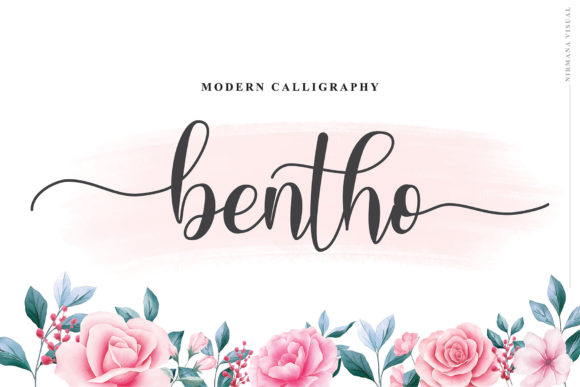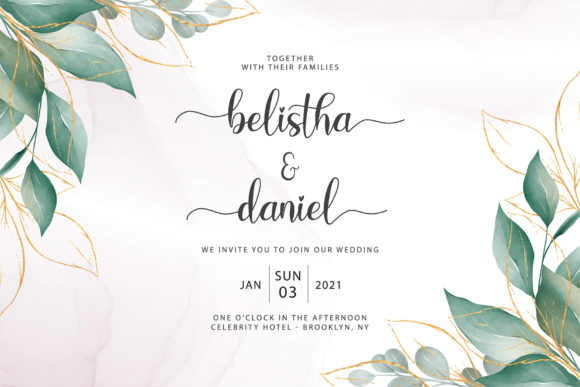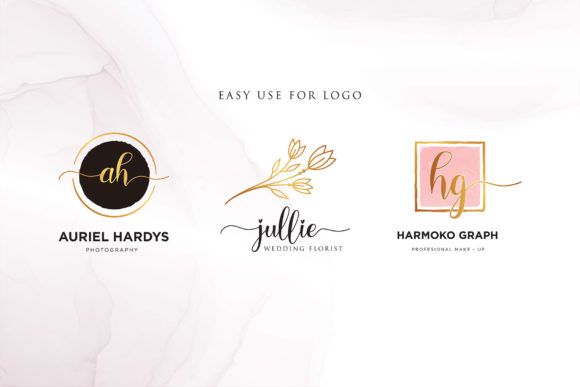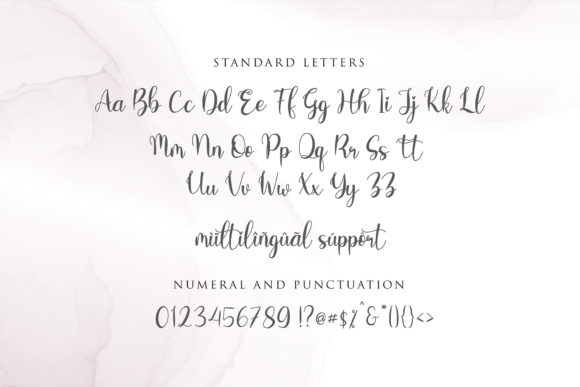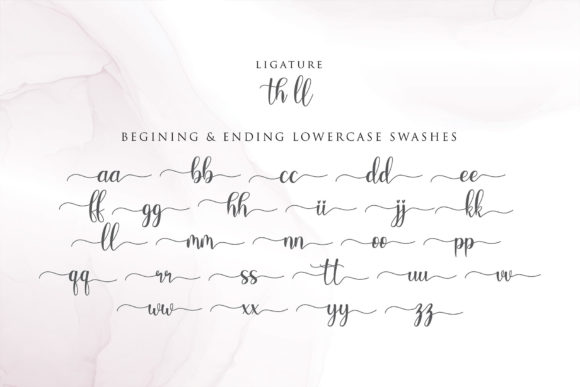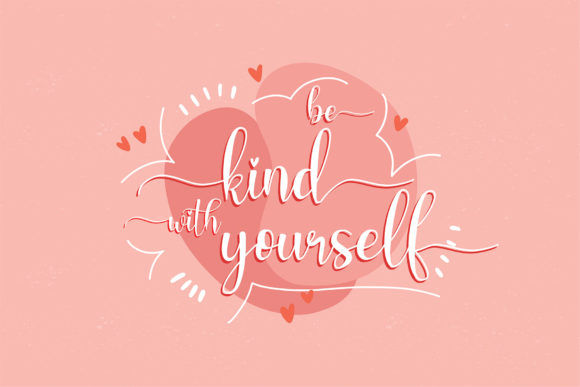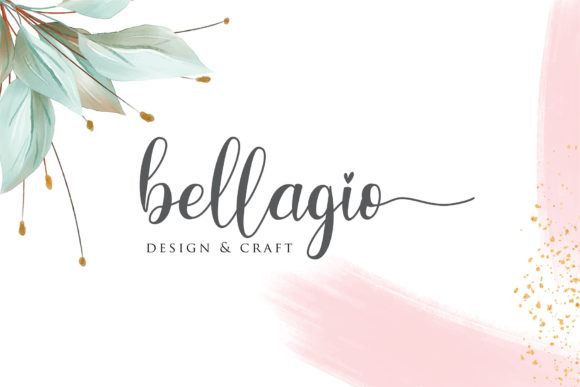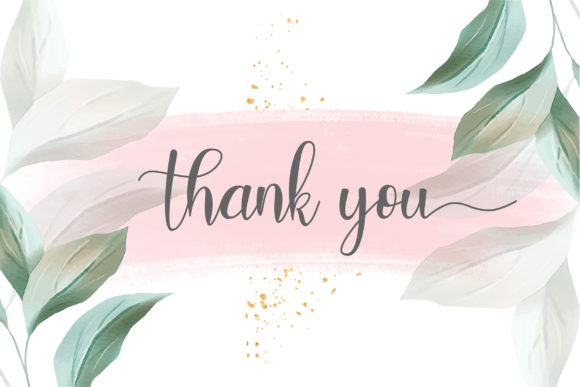
Bentho Font
About Bentho Font
Bentho is a beautiful script font carefully created with a romantic style. This is a beautiful combination of timeless elegance and authentic calligraphy.